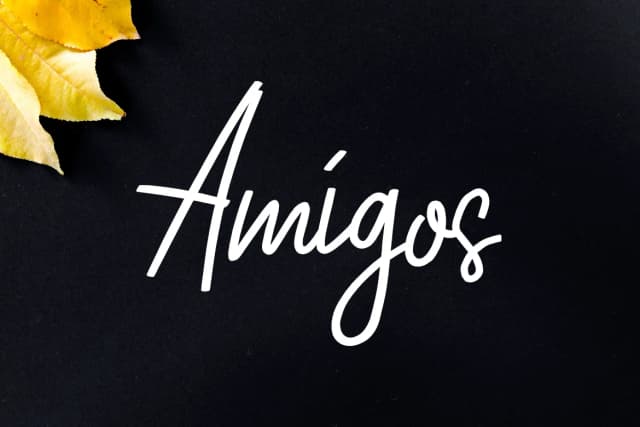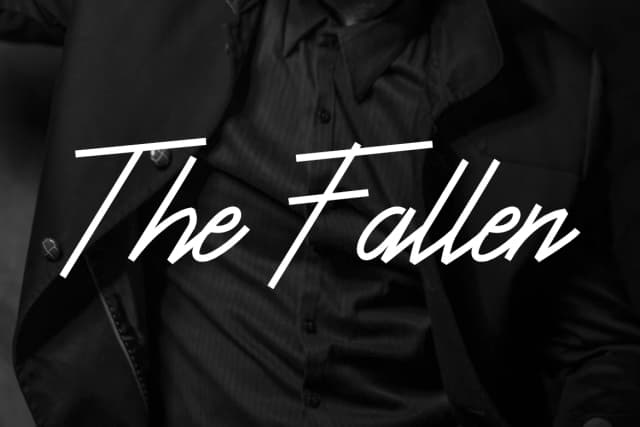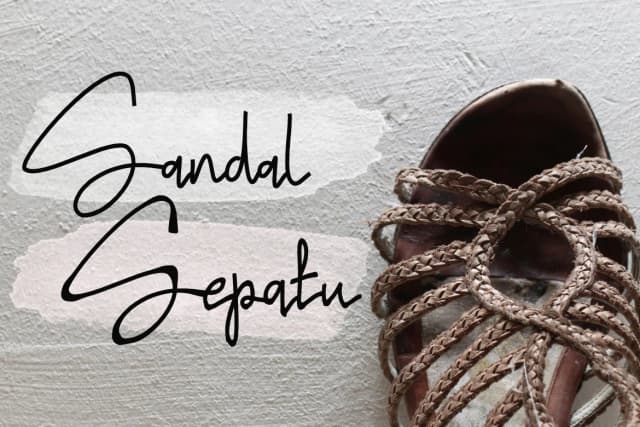
1 / 3About Chantik Sekaly Font
Chantik Sekaly by LebahStudio is a flowing handwritten script that brings organic warmth to contemporary design work. Created with meticulous attention to individual letterforms, this typeface captures the personal touch of traditional calligraphy while maintaining strong legibility across different applications and sizes. The careful craftsmanship behind each stroke reflects the designer's commitment to quality. The fluid, graceful movement of Chantik Sekaly makes it especially well-suited for wedding invitation suites, where its elegant letterforms naturally convey sophistication and intimacy. It excels at bringing character to boutique packaging design, from artisanal soap labels to small-batch cosmetic branding and natural product lines. Event planners and stationery designers will find it invaluable for creating cohesive visual identities across save-the-dates, menu cards, place cards, and thank you notes that feel both refined and genuinely personal. The font also performs beautifully as a display headline for lifestyle blogs, Instagram posts, and social media graphics, where its handcrafted aesthetic helps brands stand out and build emotional connection with audiences. Whether you're designing intimate paper goods or seeking a distinctive headline treatment that conveys authenticity and warmth, Chantik Sekaly delivers exceptional results. Discover this versatile script on Creative Fabrica and bring its handwritten character to your creative projects.
Chantik Sekaly Font is a script font that shines as a display or heading face. Pair it with a clean sans-serif or serif font for body text β the contrast creates a clear hierarchy while the two styles stay balanced and easy to read.
Chantik Sekaly Font
by LebahStudio